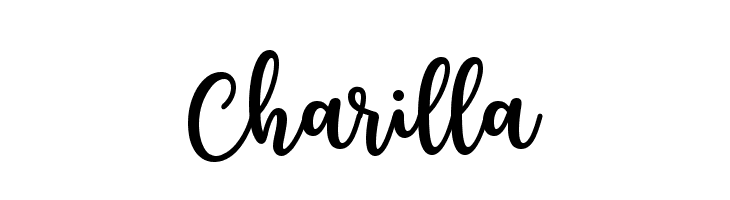
A whimsical, artistic font with flowing lines and a handwritten feel.
A flowing, cursive script font with elegant, handwritten strokes.
A modern, elegant script font with fluid, dynamic strokes and a handwritten quality.
A sophisticated, elegant handwritten script with fluid, connected letterforms.
A flowing, cursive handwritten font with elegant, connected letters.
A lively handwritten font with fluid, expressive strokes.
A playful, casual handwritten font with fluid, dynamic strokes.
A fluid and elegant script font with dynamic cursive letterforms.
Bold cursive script with elegant curves.